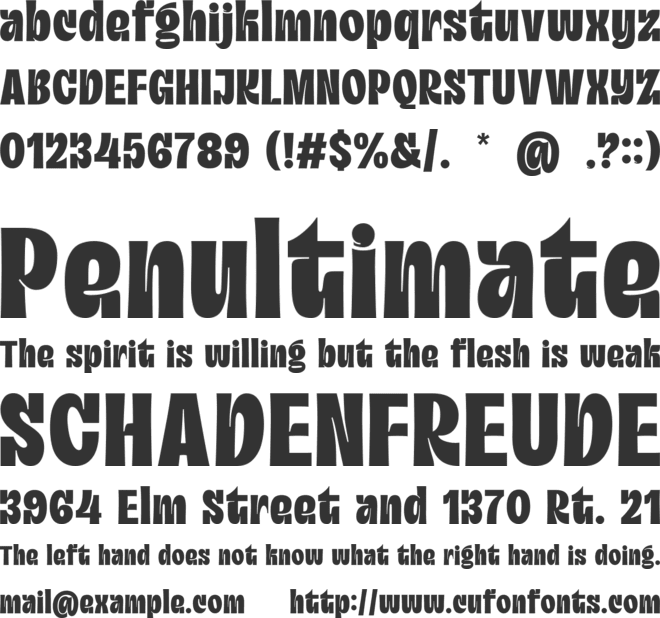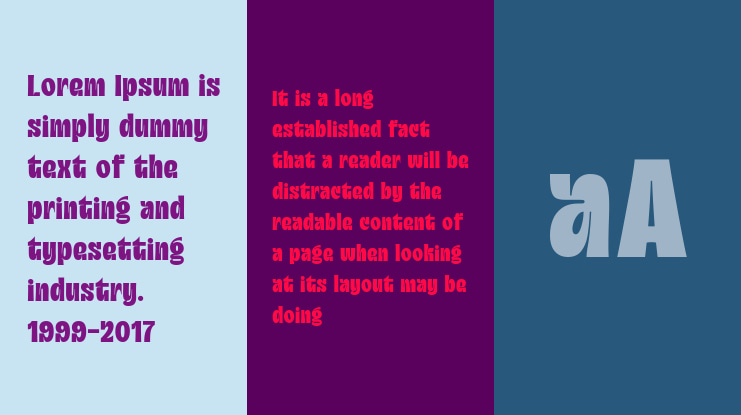
Curve Retro Font
Curve Retro – The Funky & Groovy Display Font (935 Glyphs + Bonus Dingbats)
Get ready to turn up the volume! 📼✨
Introducing Curve Retro, a bold and playful display font that brings the electric energy of the 80s and 90s straight into your design toolkit. With its chubby curves, funky rhythm, and psychedelic vibes, this font is a time machine to an era of bright colors, disco nights, and cassette tapes.
Designed for those who aren't afraid to stand out, Curve Retro isn't just a typeface—it’s a complete design system. Whether you are creating a music festival poster, a streetwear brand logo, or a groovy social media campaign, this font packs the punch you need.